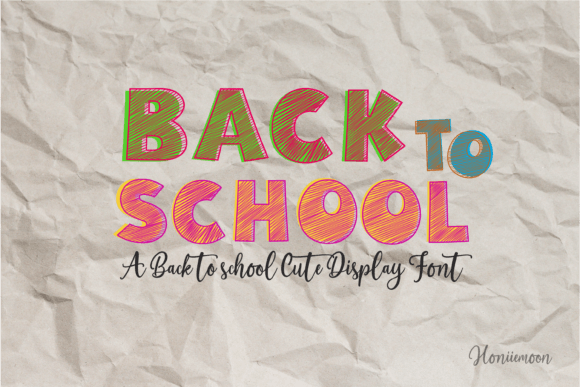
The Perfect Addition to Your Back to School Designs
Summer’s finally over, and it’s time to get back to work – or rather, back to school. As designers, we know that a new school year brings a fresh slate of creative projects and ideas. But, let’s be honest, sometimes it’s hard to get those creative juices flowing after a long break. That’s where a little inspiration comes in – like the perfect font to bring your designs to life.
Enter the Back to School Font, a fun and playful display font that’s sure to add a pop of personality to your designs. Whether you’re creating invitations for the first day of school, designing educational materials, or simply looking for a fun way to add some whimsy to your projects, this font is the perfect addition. With its bold and colorful style, the Back to School Font is a valuable asset for any designer looking to add a little extra flair to their work.
Key Features of “Back to School Font”
- Font Family: The font family consists of multiple styles including Regular, Italic, Bold, and Bold Italic.
- Unique Characteristics: The font features a fun, playful, and educational design theme, perfect for back-to-school and educational materials.
Back to School Font Review
Overall, I think the Back to School Font is a fun and playful addition to any design project. ✨ The font’s childlike charm makes it perfect for school-themed projects, educational materials, and even social media campaigns.
- One of the standout features of the font is its versatility. It comes in a variety of weights and styles, making it easy to use in different contexts.
- Another thing I appreciate is the font’s ease of readability. The characters are well-formed and easy to distinguish, even at smaller sizes.
However, there are some limitations to consider. ⚠️ The font may not be suitable for more formal or professional projects, as its playful tone can come across as unprofessional.
Additionally, some of the characters may not be as detailed or nuanced as those in more traditional fonts. This can be a drawback for designers who are looking for a high level of precision in their typography.
Overall, I think the Back to School Font is a great choice for designers who are looking for a fun and playful font to add some personality to their projects. With its versatility and ease of readability, it’s a great option for a wide range of applications.
The Back to School font is ideal for:
- School projects and presentations.
- Summer camp and workshop materials.
- Back to school flyers and posters.
- Education-themed social media graphics.
To get the most out of the Back to School font, try:
- Combining it with other playful fonts.
- Using it in bold or italic styles for emphasis.
- Pairing it with bright, fun colors.
Alternatives to “Back to School Font” for Designers
Playfair Display is a luxurious, high-end serif font perfect for creating a sense of sophistication and elegance. It’s ideal for use in high-end branding, luxury advertising, and fine art projects. Compared to Back to School Font, Playfair Display has a more refined and classic feel, whereas Back to School Font is more playful and casual.
Great Vibes is a modern, elegant script font that’s perfect for creating a sense of warmth and approachability. It’s ideal for use in branding, advertising, and editorial projects where a touch of personality is needed. Compared to Back to School Font, Great Vibes has a more fluid and dynamic feel, whereas Back to School Font is more rigid and structured.